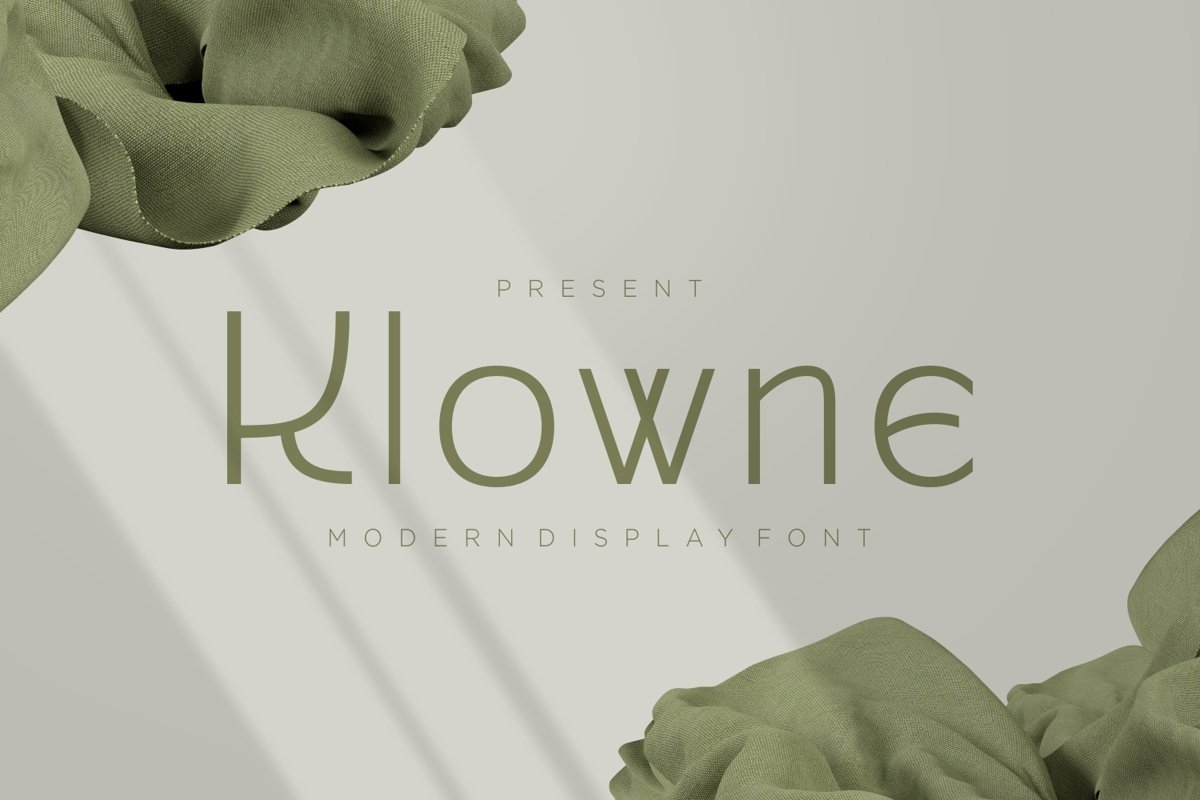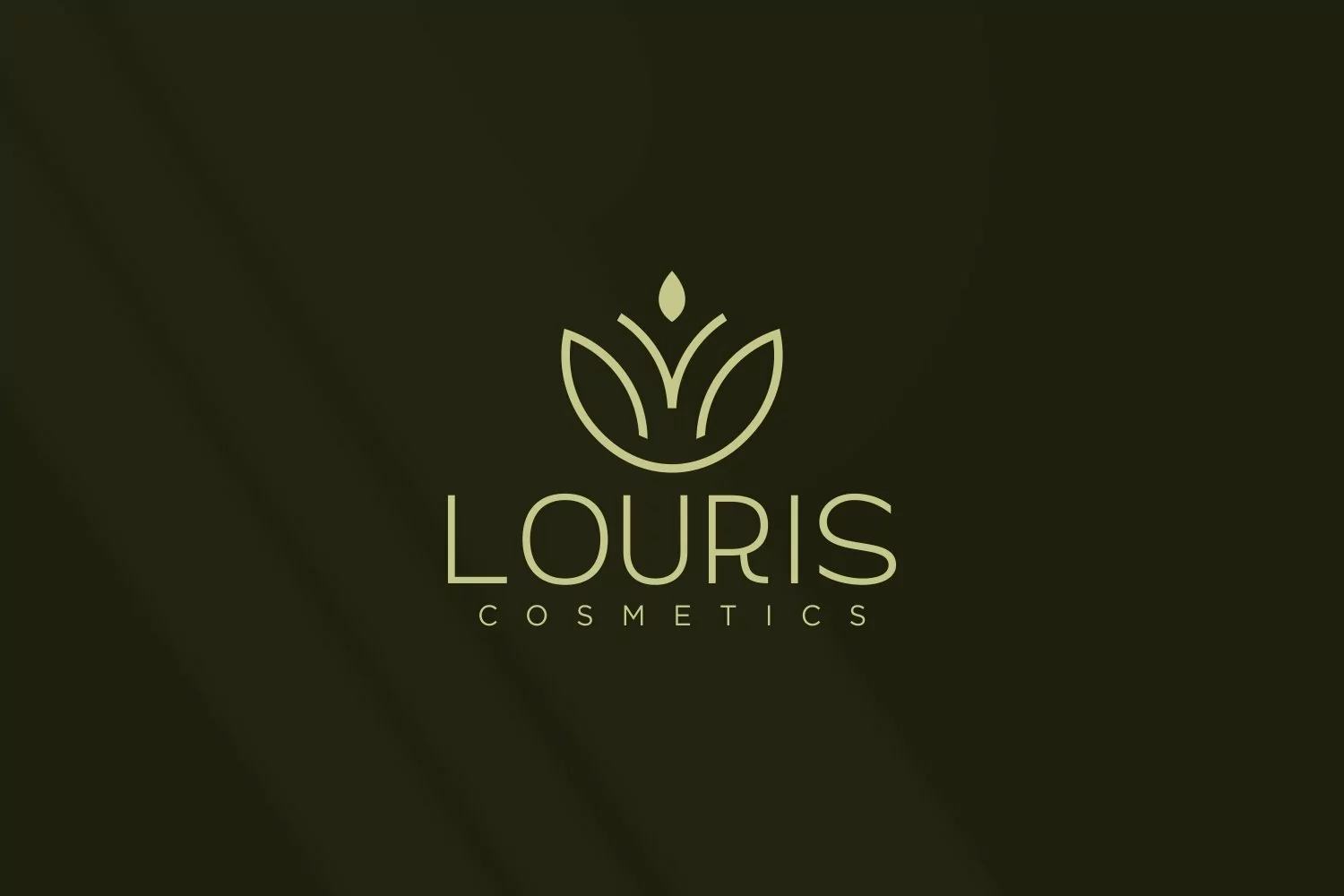
Klowne is san serif display come with modern themes. We wanted to create the most readable and clean. It matches applies in some designs such as the logotype, brand, packaging, quotes, cute poster, kids shirt, cover book, birthday invitation and more custom design. The features uppercase, lowercase, numeral, punctuation & symbol, multilingual support, PUA encoded (fully accessible without additional design software).